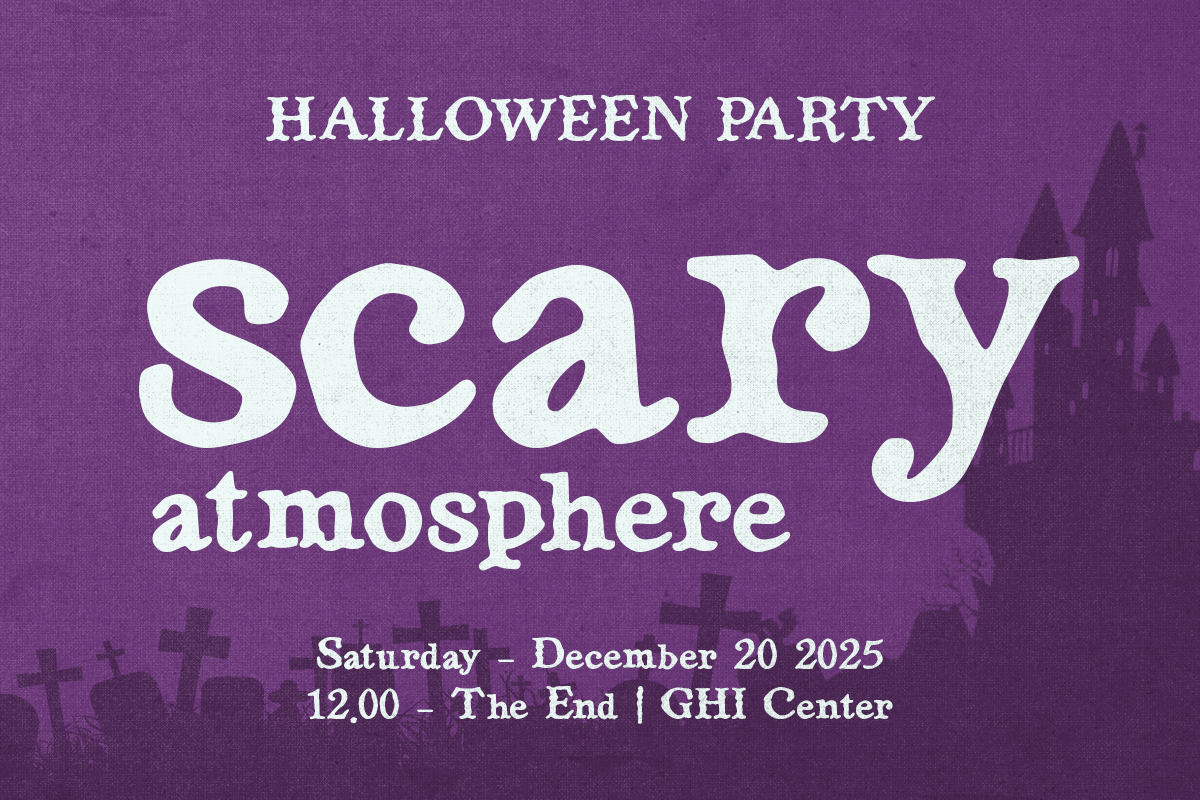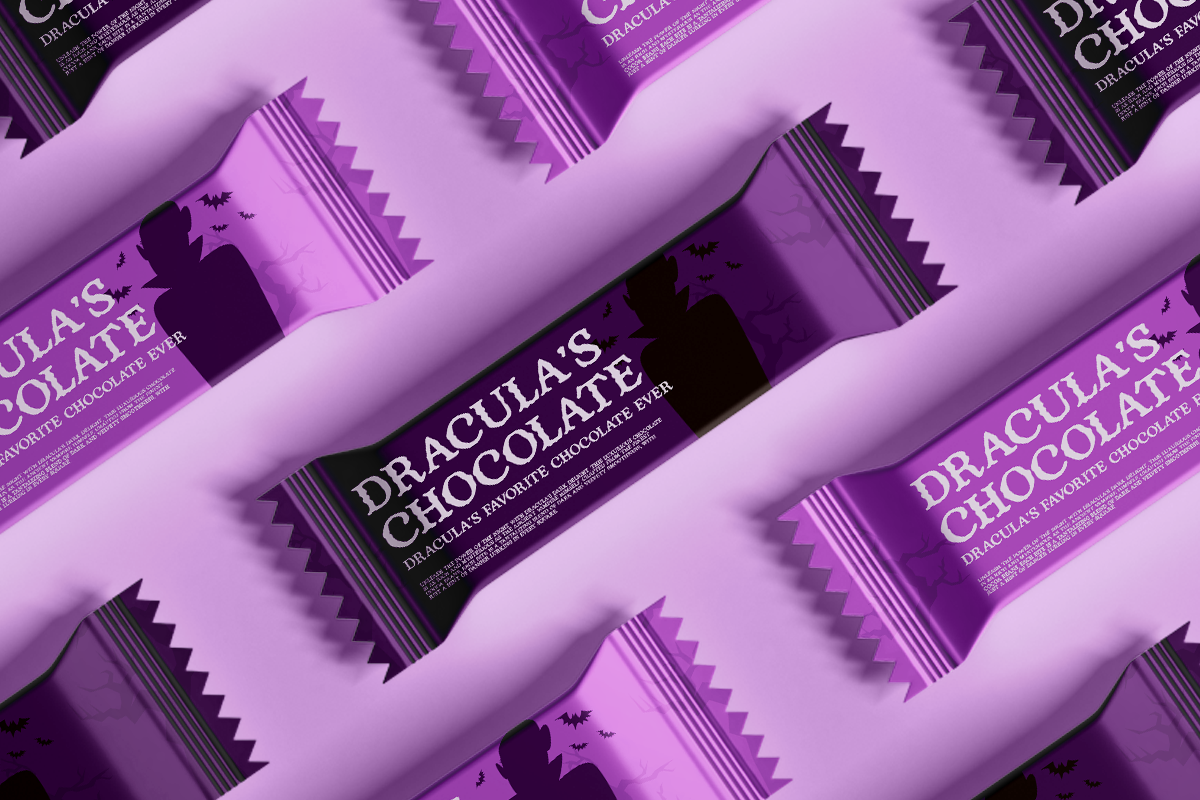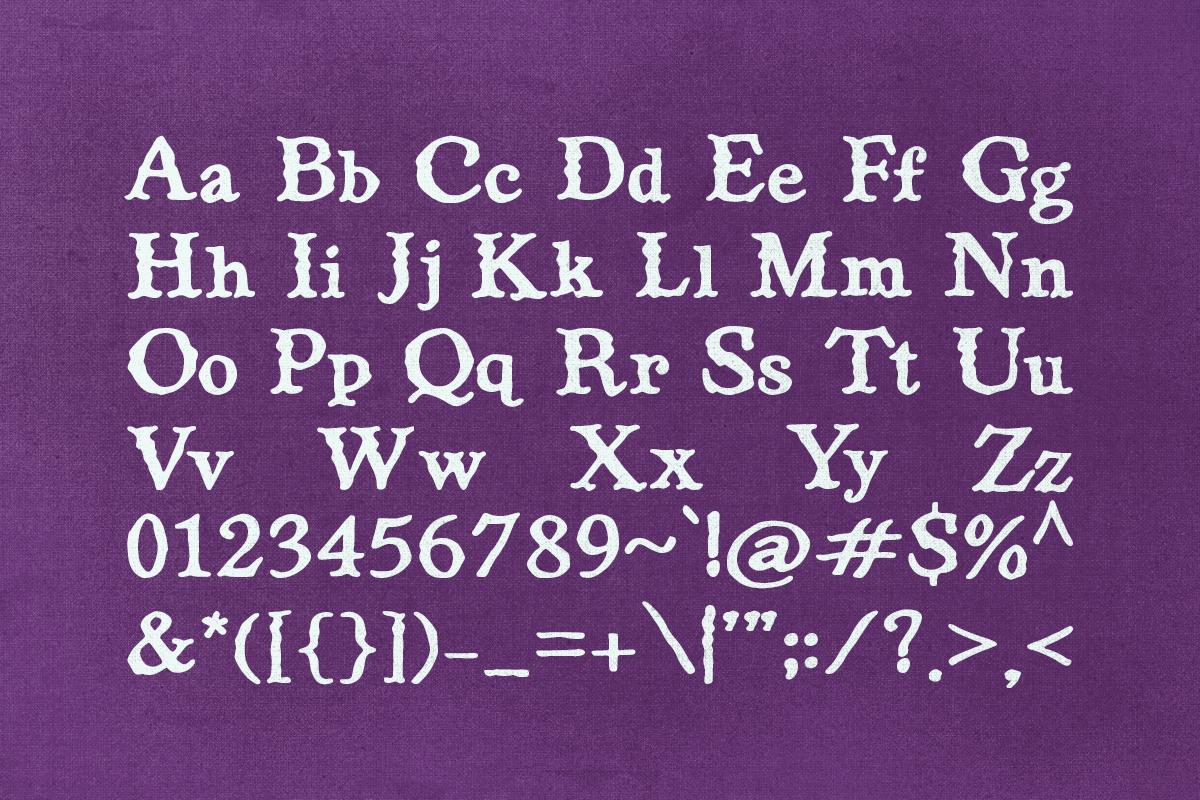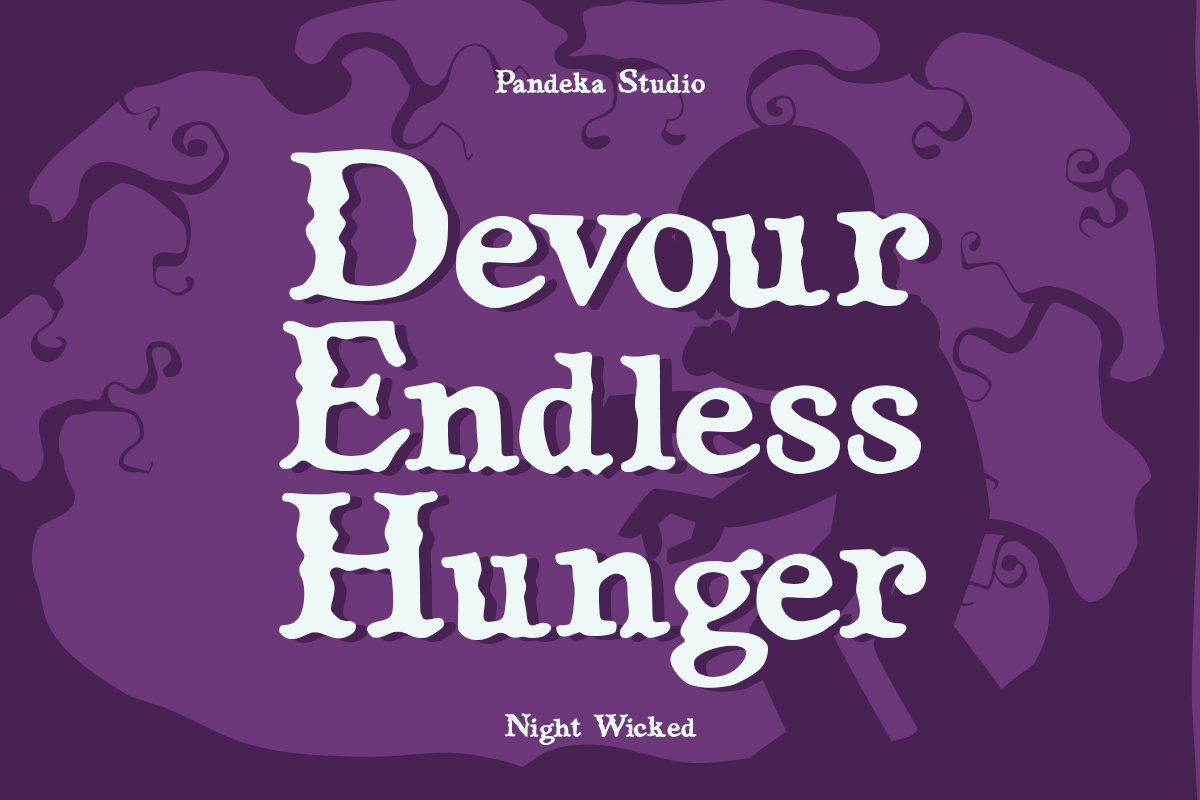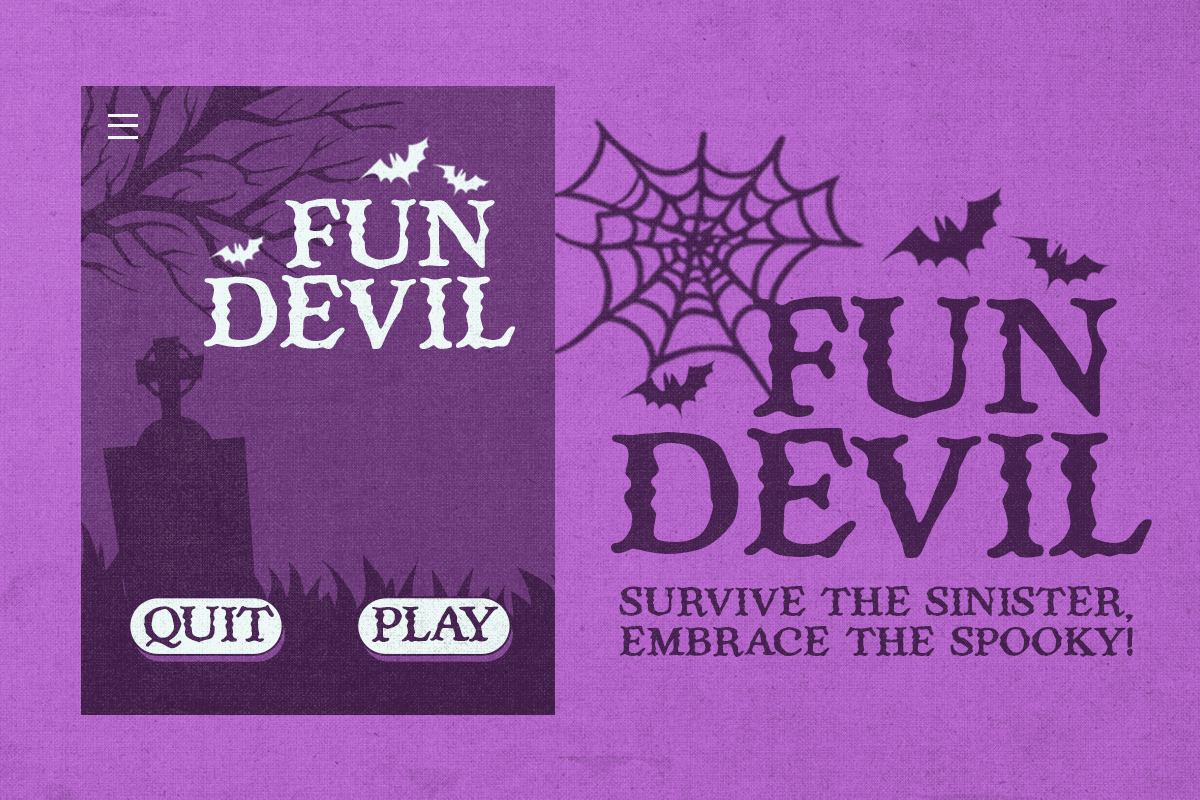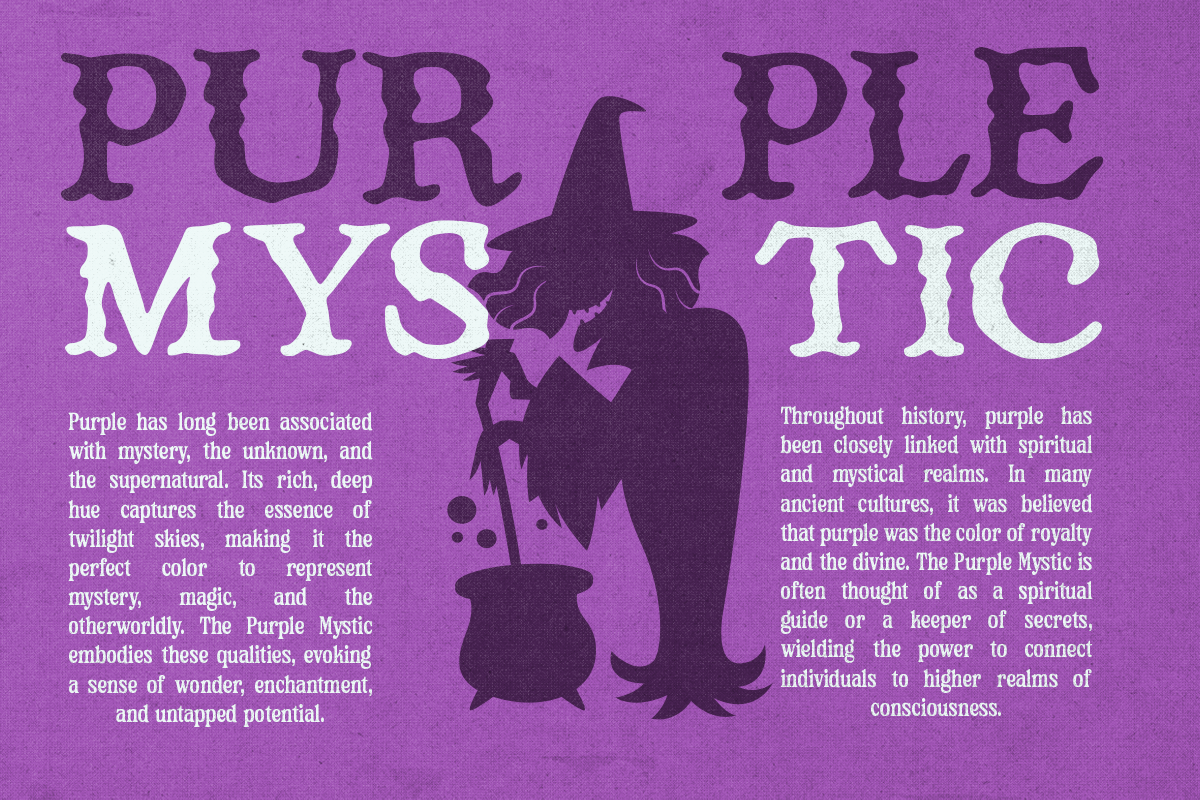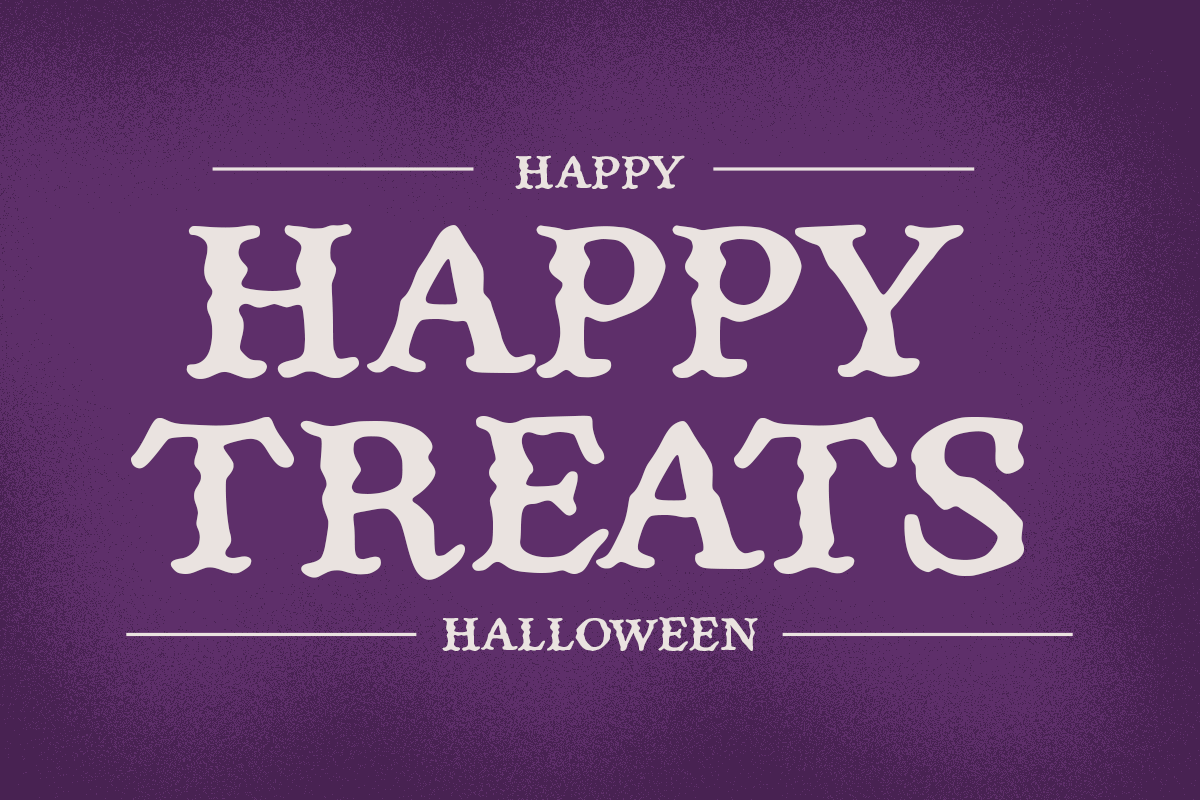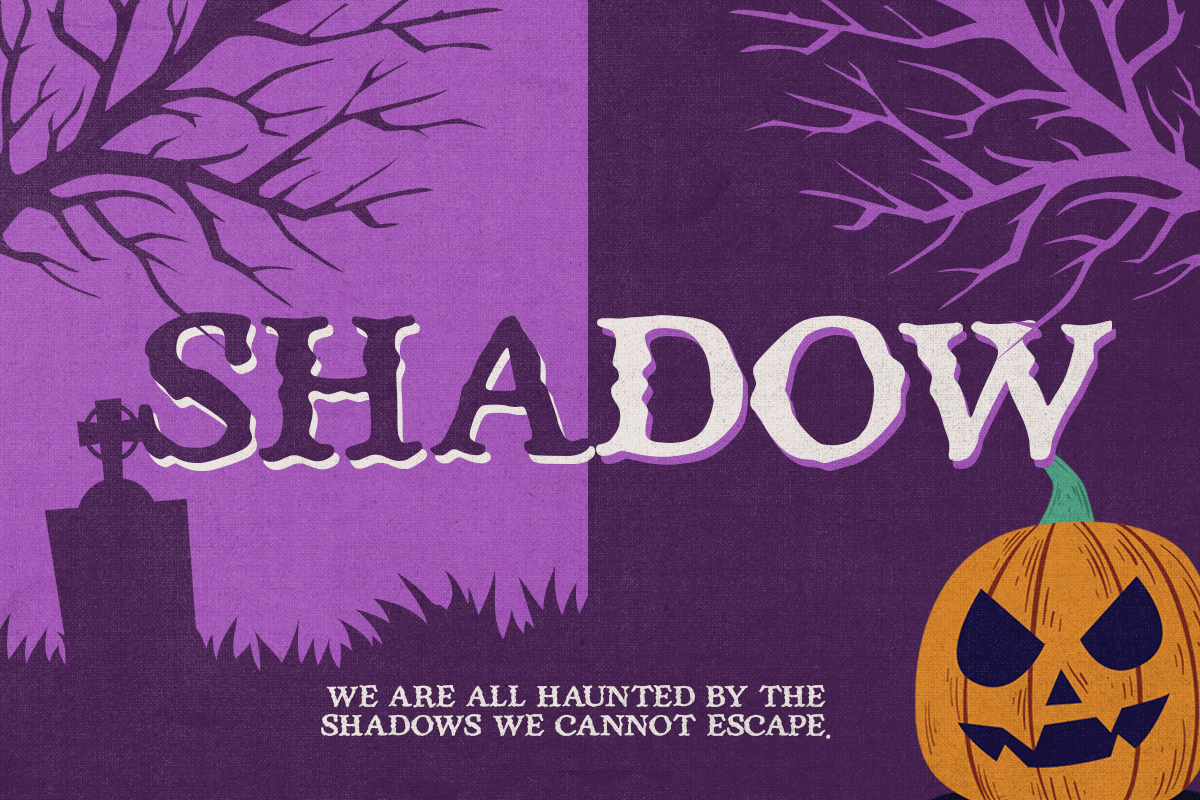
Night Wicked - Halloween Handdrawn
Night Wicked – Spooky Hand-Drawn Font 🎃👻
Night Wicked is a Halloween-inspired typeface with creepy, hand-drawn lettering that enhances eerie and haunted designs. Perfect for spooky posters, horror movie titles, eerie invitations, haunted house flyers, gothic branding, and seasonal merchandise, this font brings a chilling, unique aesthetic to any horror-themed project.
- Full Character Set: Uppercase, lowercase, numbers, symbols, and punctuation